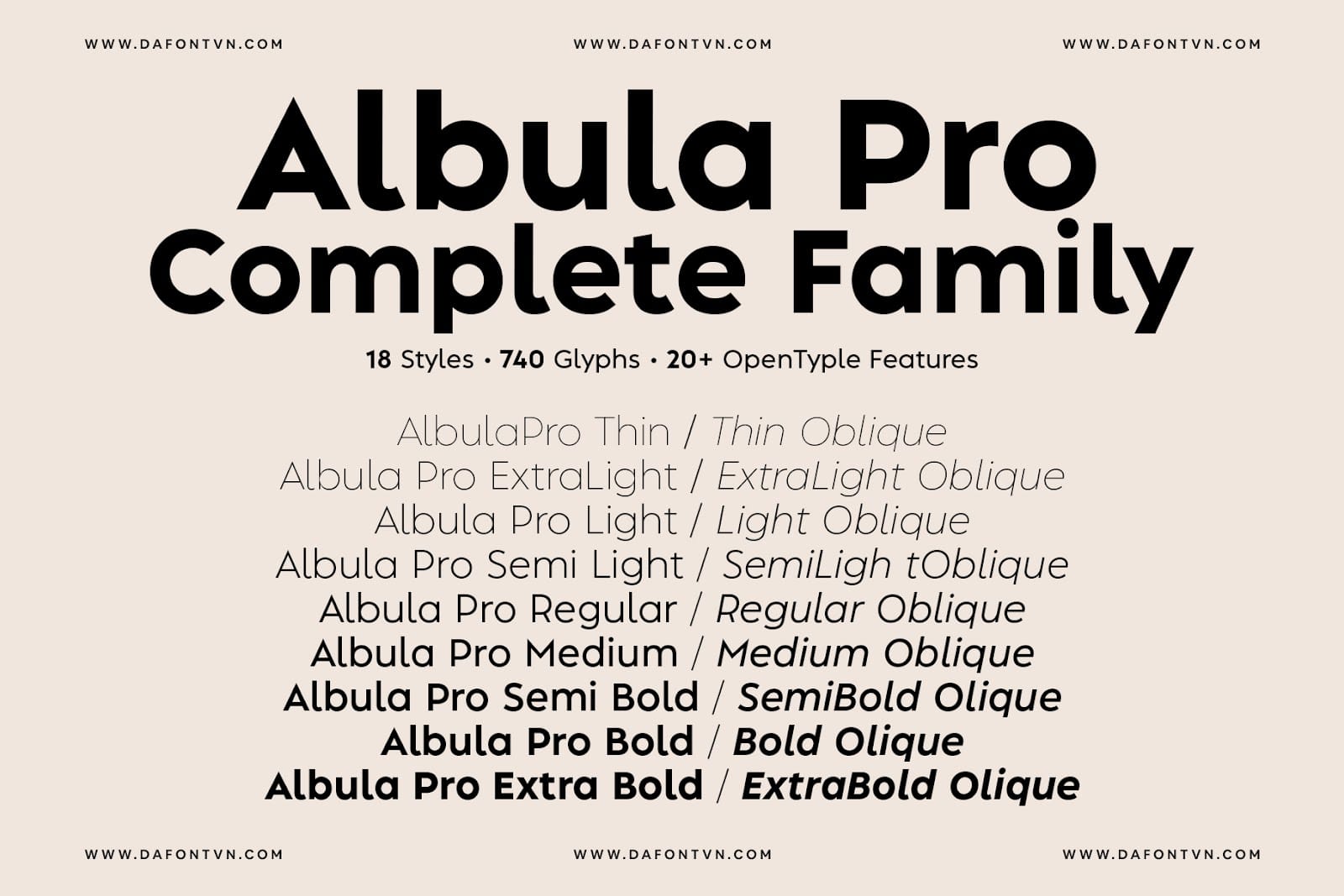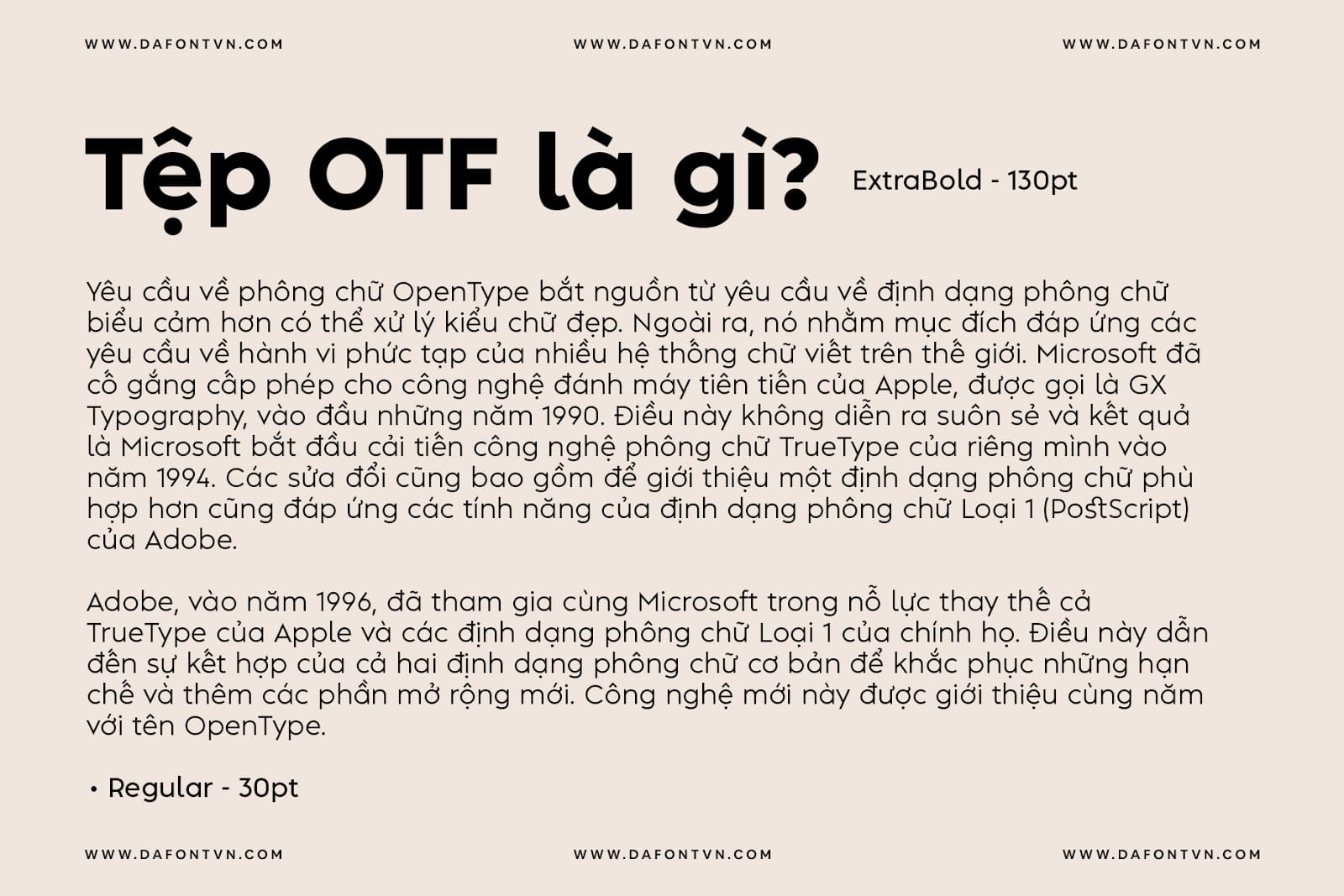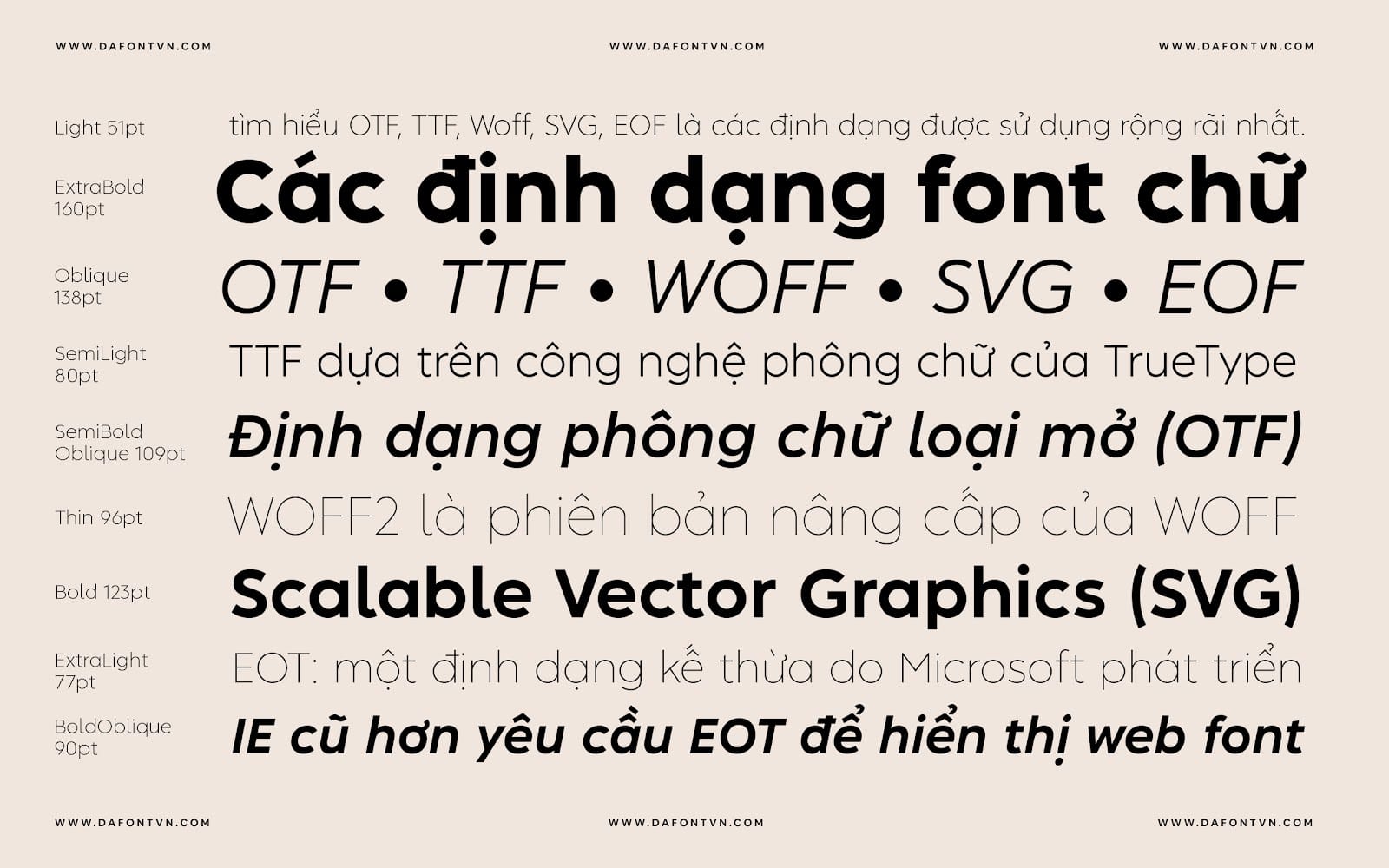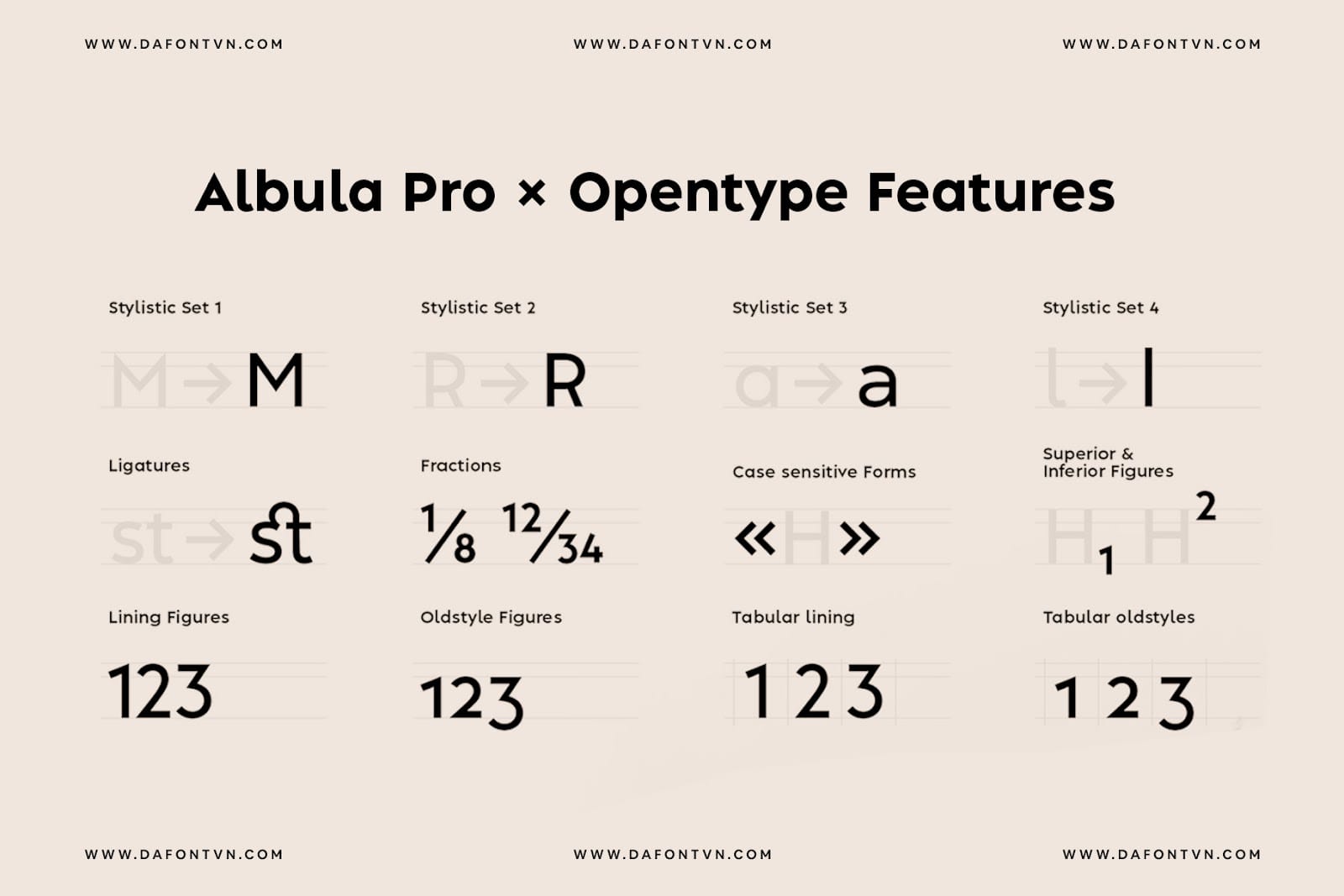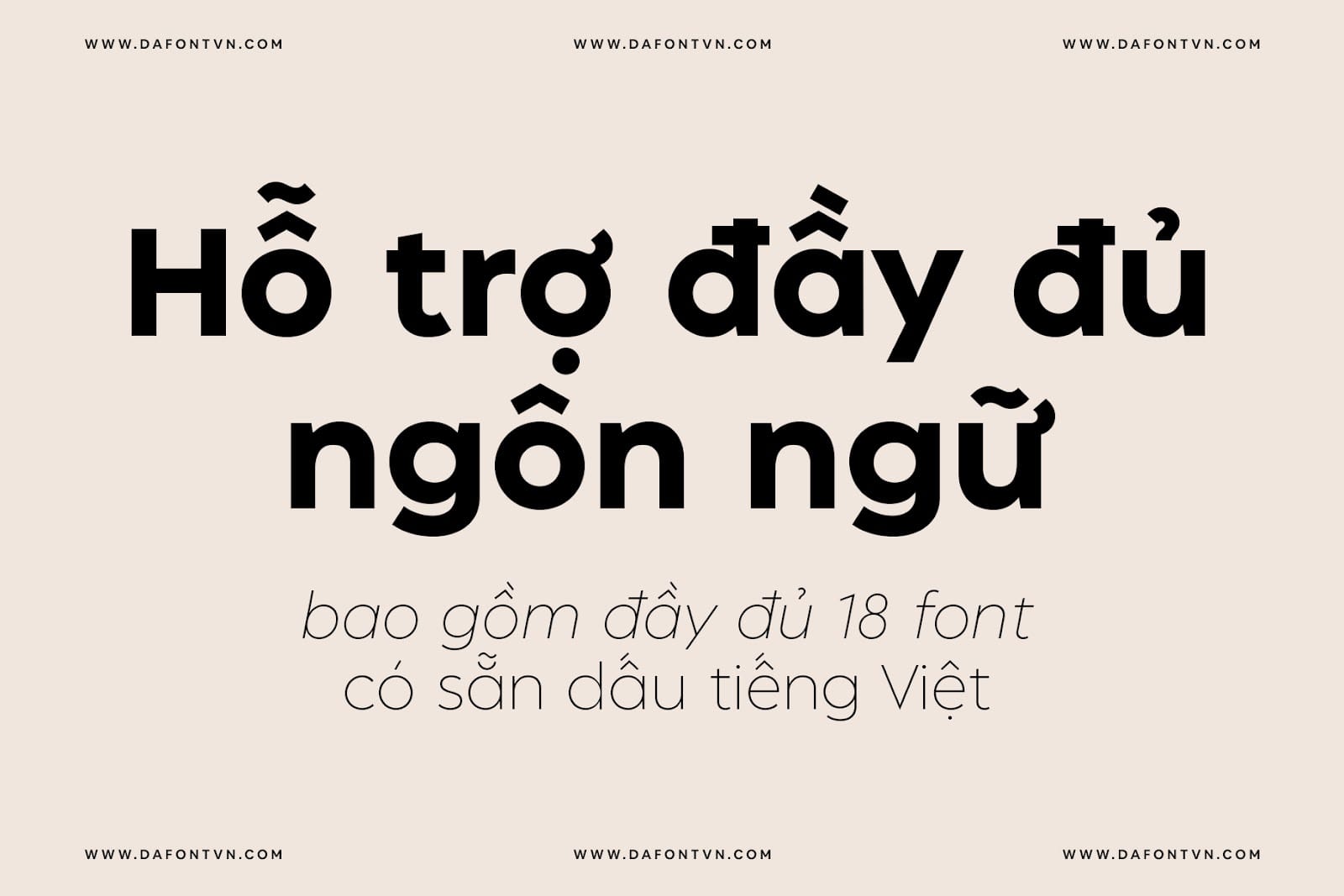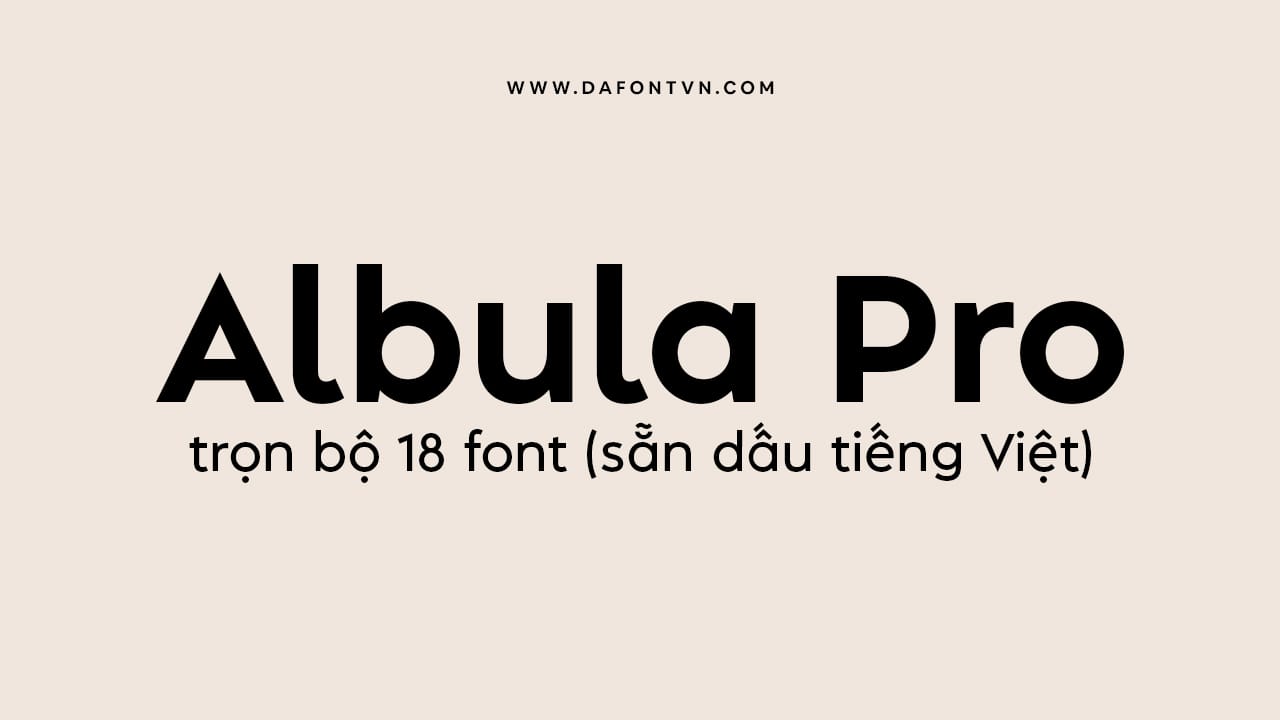
Albula Pro is a modern geometric sans with captivating features. Inspired by geometry and enhanced with unique details, its shapes are optically adjusted to ensure an excellent reading experience, making it widely applicable for professional purposes. Albula Pro is an ideal choice to highlight your designs and layouts, working seamlessly for both headers and branding purposes.
In the design of Albula Pro, readability is given significant importance to ensure a good reading experience regardless of the length of the text, making it an excellent choice for editorial content.
Bộ font bao gồm đầy đủ 18 font và có sẵn dấu tiếng Việt.